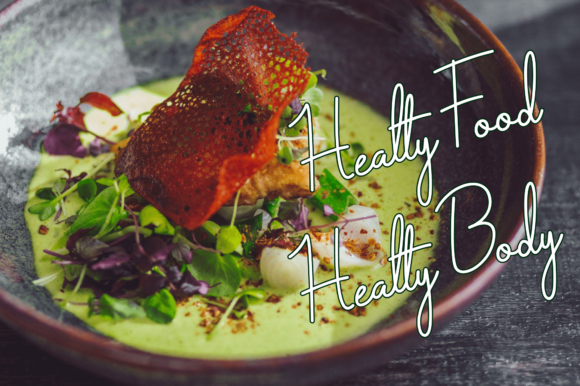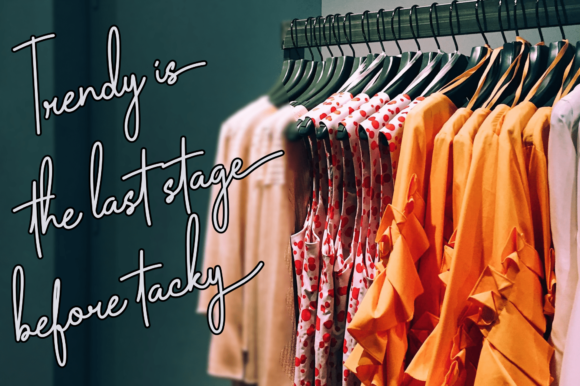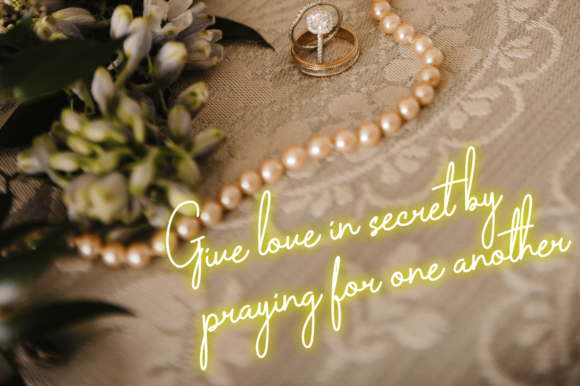
Fatta Morgana Font: Elevate Your Designs with Delicate Elegance
In the realm of typography, few fonts manage to capture the essence of elegance and sophistication as effectively as the Fatta Morgana font. This exquisite, flowing script font is a masterpiece of delicate style, meticulously crafted to add a touch of refinement to any design project. Whether you’re a seasoned designer or a crafting enthusiast, Fatta Morgana is poised to become a cherished addition to your font library, capable of elevating your creations to new heights of aesthetic appeal.
The Essence of Fatta Morgana
Fatta Morgana is more than just a font; it’s an experience. Its delicate style is reminiscent of the intricate patterns found in fine lace or the gentle curves of a summer breeze. This flowing script font is characterized by its highly detailed and neatly crafted letters, which seem to dance across the page with a grace that’s both captivating and inspiring. The font’s design is a perfect blend of traditional elegance and modern versatility, making it suitable for a wide range of applications, from wedding invitations and branding materials to digital content and art projects.
One of the standout features of Fatta Morgana is its incredible versatility. Regardless of the topic or theme of your project, this font can adapt and enhance it with its unique charm. Whether you’re working on a formal event invitation, a fashion brand’s logo, or a personal blog, Fatta Morgana can add a level of sophistication and elegance that’s hard to achieve with more generic fonts. Its flowing script style can evoke emotions, convey luxury, and create a lasting impression on your audience, making it an invaluable tool in your design arsenal.
Crafting with Fatta Morgana
For crafters and DIY enthusiasts, Fatta Morgana opens up a world of creative possibilities. Imagine using this beautiful font to add a personal touch to handmade cards, scrapbooking projects, or custom jewelry. The font’s delicate style can complement a variety of crafting techniques, from paper crafting and mixed media to embroidery and calligraphy. With Fatta Morgana, you can transform simple crafting projects into stunning pieces of art that showcase your creativity and attention to detail.
Why Choose Fatta Morgana?
There are several reasons why Fatta Morgana stands out in the world of typography:
- Elegant Design: Its flowing script style and delicate details make it perfect for projects that require a touch of sophistication.
- Versatility: Suitable for a wide range of applications, from digital designs to handmade crafts.
- Highly Detailed: Neatly crafted letters that offer a high level of readability and aesthetic appeal.
- Easy to Use: Designed to be user-friendly, making it accessible for both professional designers and hobbyists.
Fatta Morgana is more than just a font; it’s a design asset that can transform your projects with its delicate elegance and flowing script style. Whether you’re a designer looking to elevate your branding and marketing materials or a crafter seeking to add a touch of sophistication to your handmade projects, Fatta Morgana is an excellent choice. Its versatility, combined with its beautiful design, makes it a valuable addition to any font library. Discover the creative possibilities with Fatta Morgana and take your designs to new heights of elegance and refinement.
As you explore the capabilities of Fatta Morgana, you’ll likely find yourself inspired to create projects that showcase its beauty. From elegant stationery and sophisticated branding to stunning digital content and intricate crafting projects, the possibilities are endless. With Fatta Morgana, you’re not just choosing a font; you’re embracing a design philosophy that values elegance, creativity, and attention to detail.
In conclusion, Fatta Morgana is a remarkable font that deserves a place in every designer’s and crafter’s toolkit. Its flowing script style, delicate details, and versatility make it an invaluable asset for anyone looking to add a touch of elegance to their projects. By incorporating Fatta Morgana into your creative process, you’ll be able to produce stunning designs that captivate and inspire your audience.